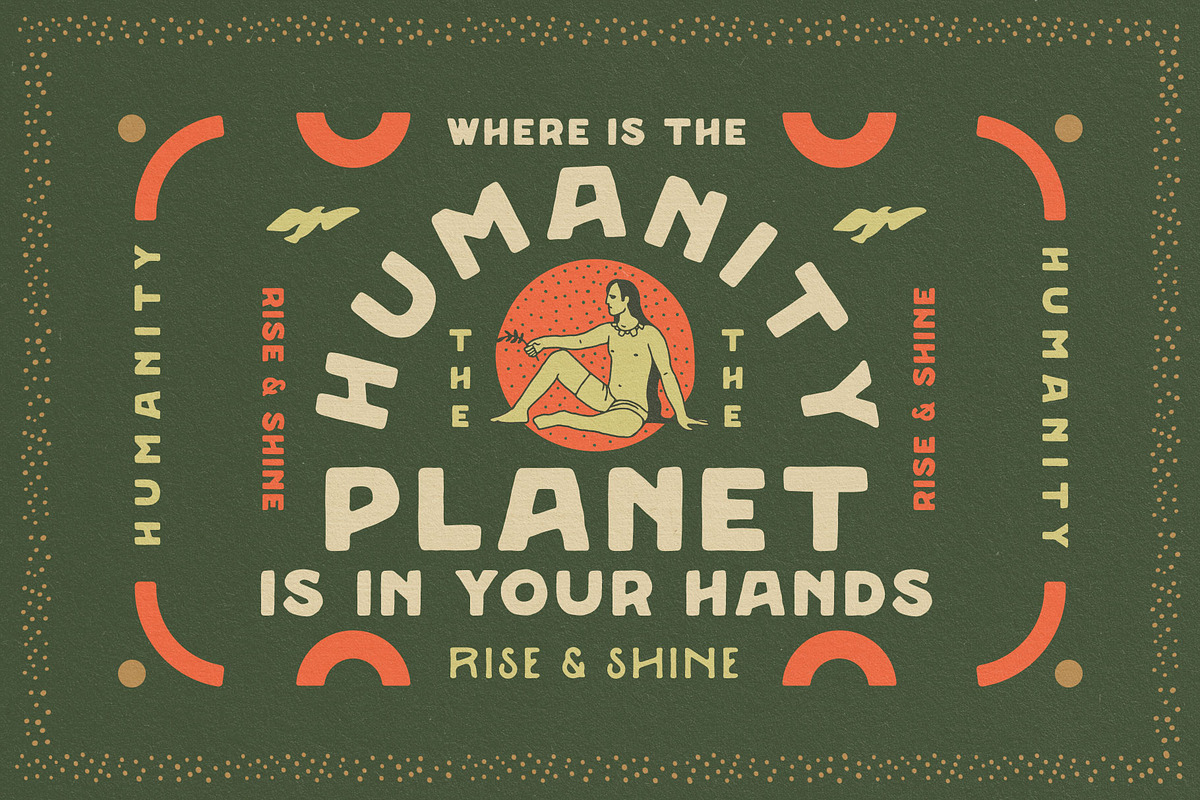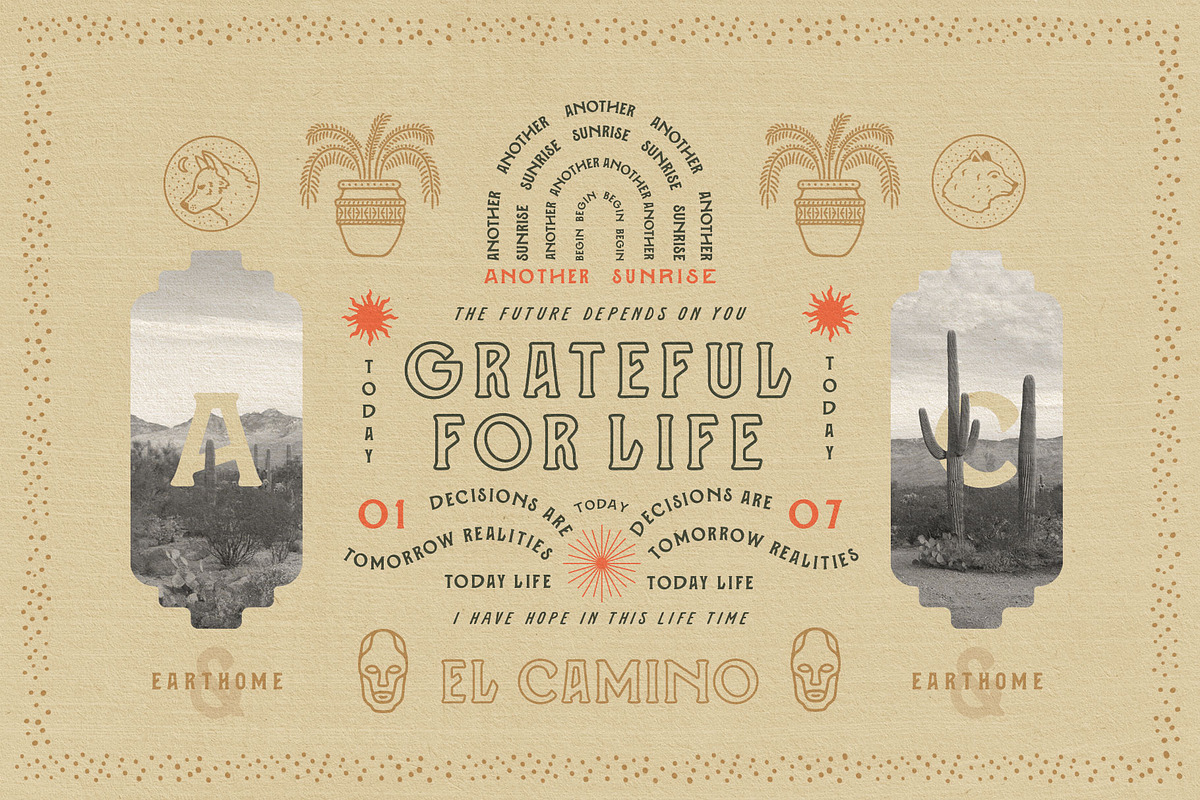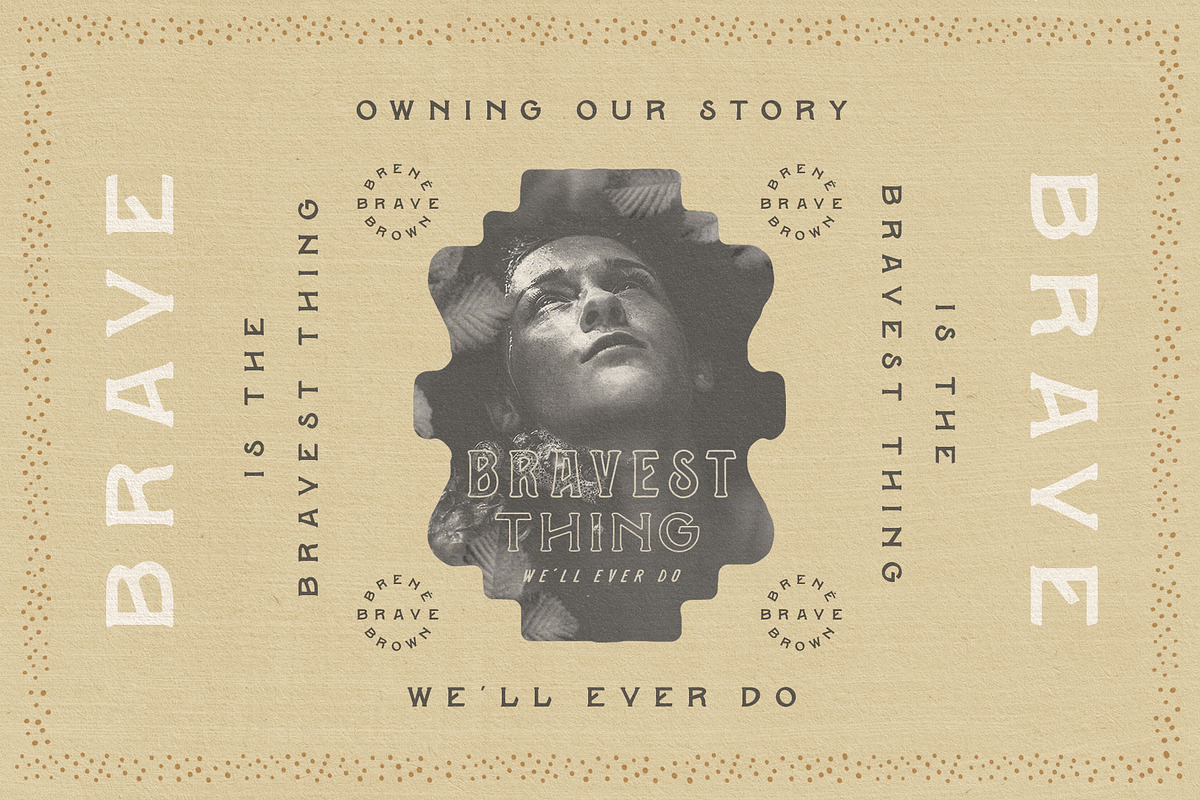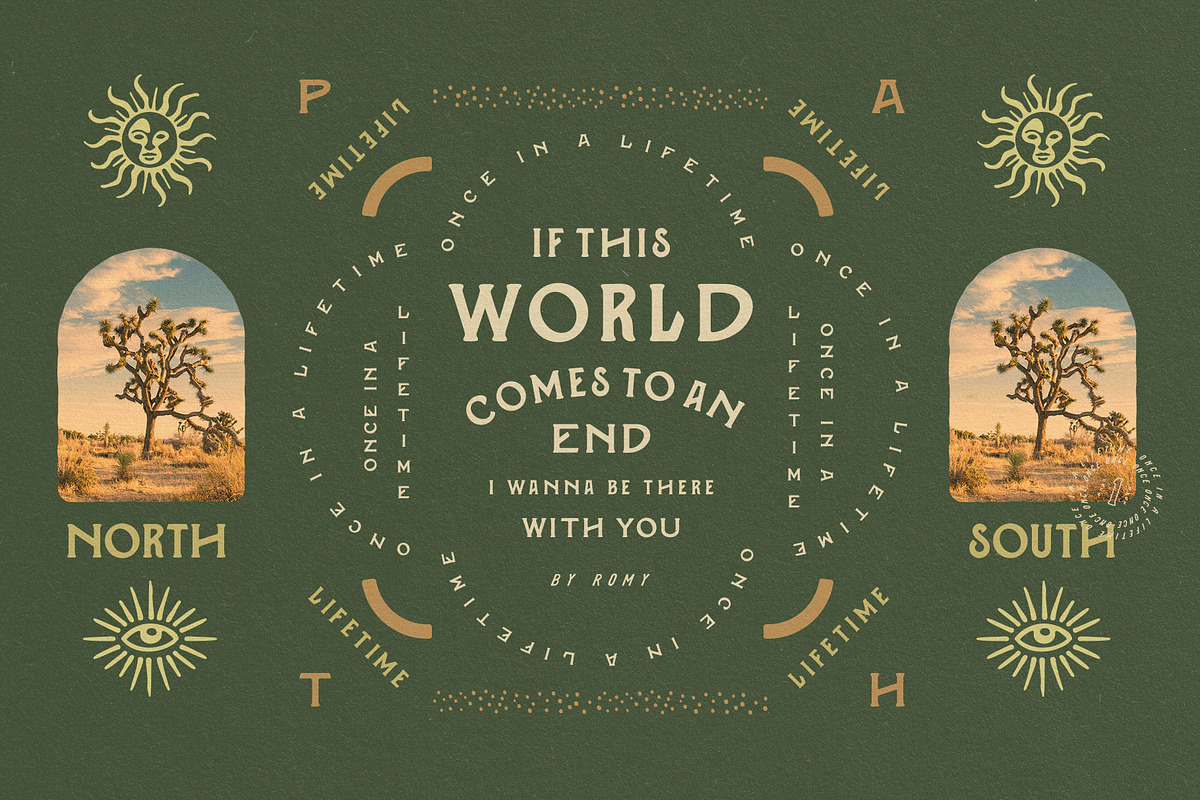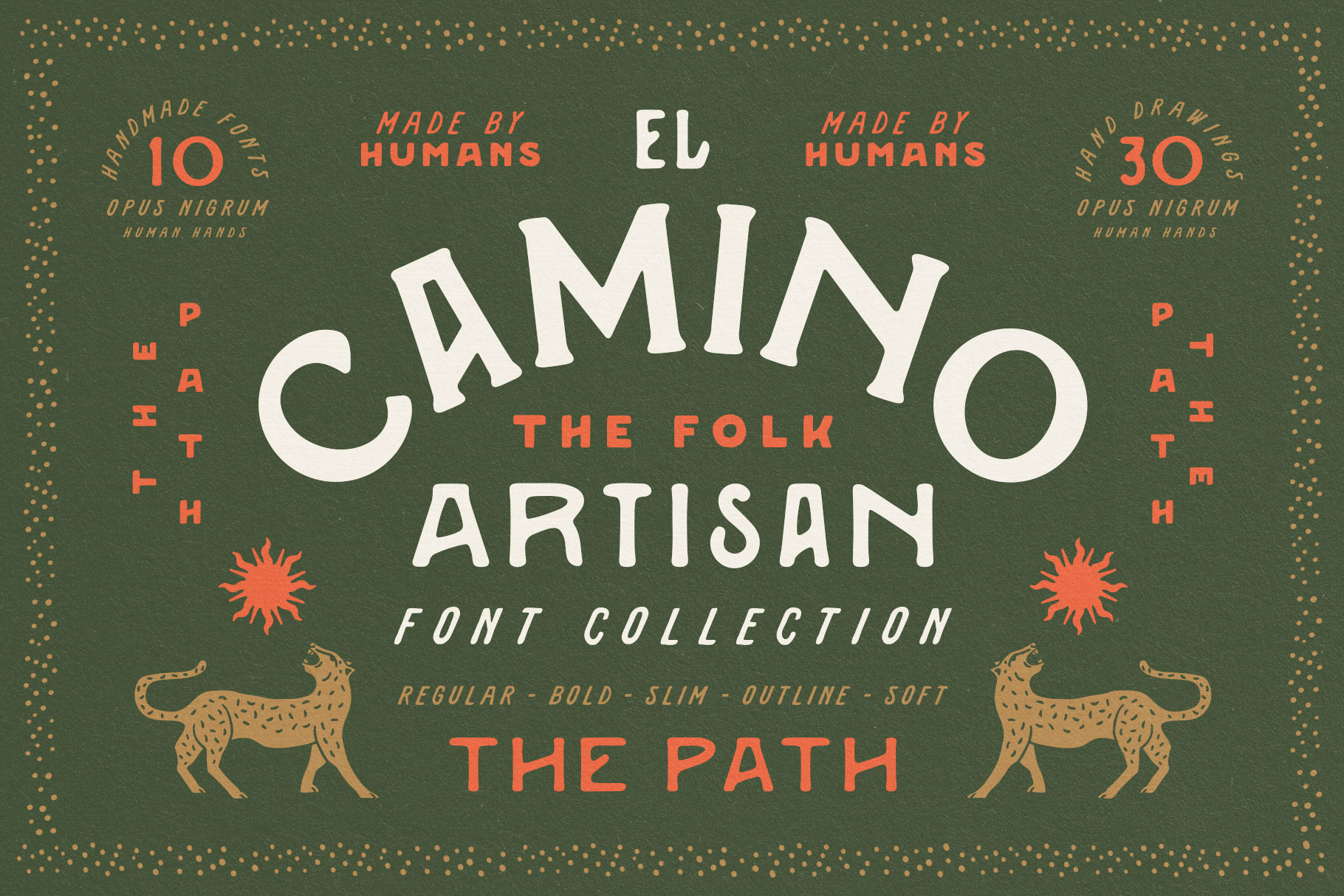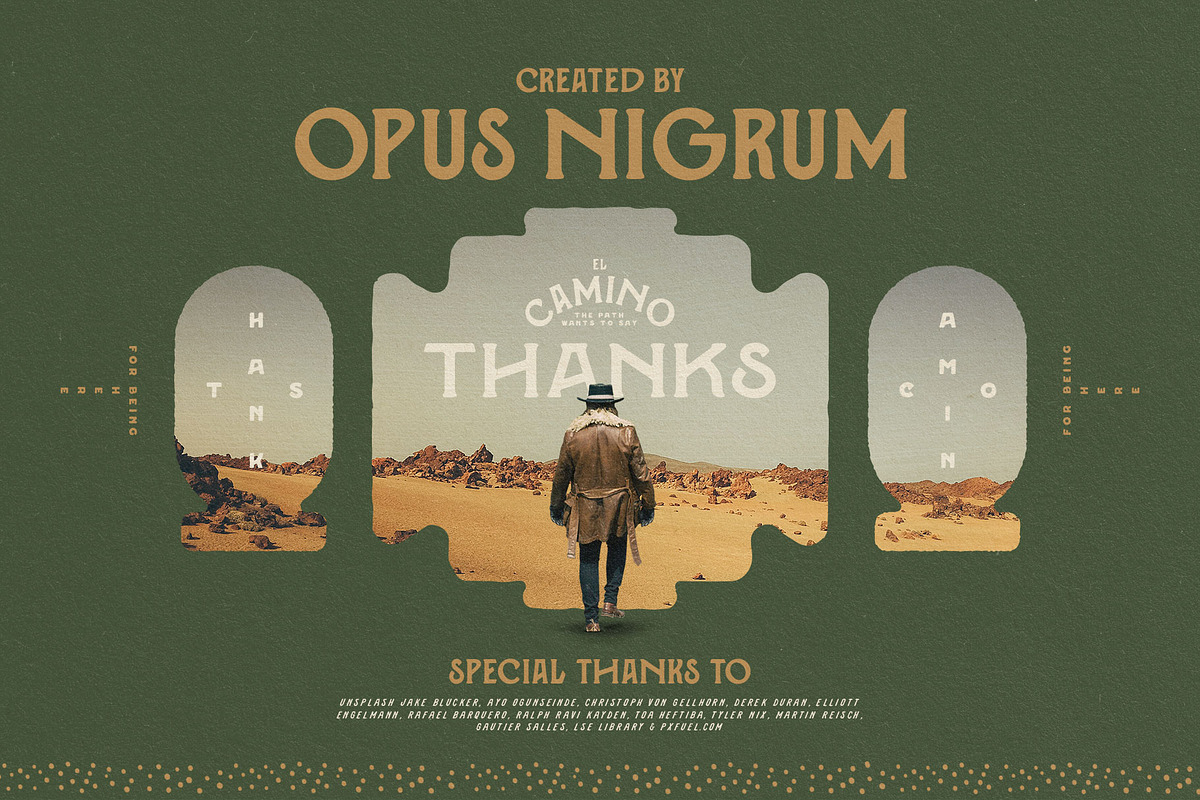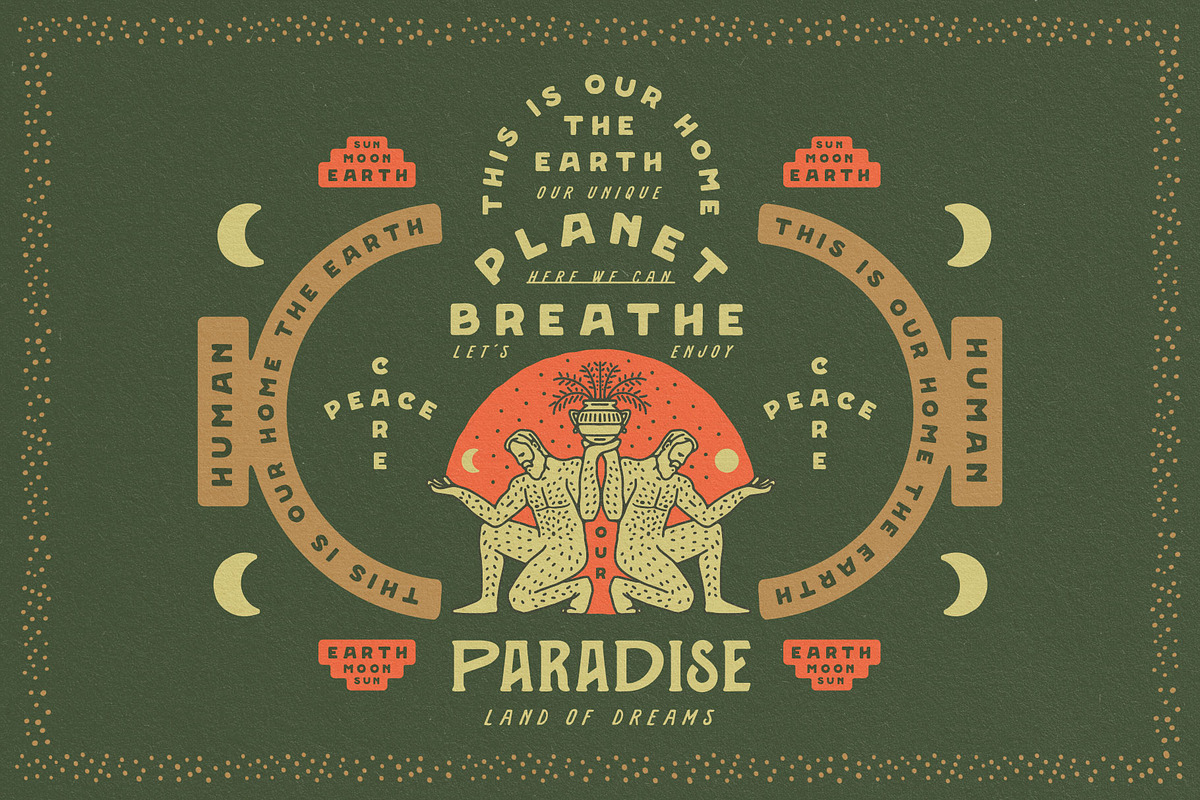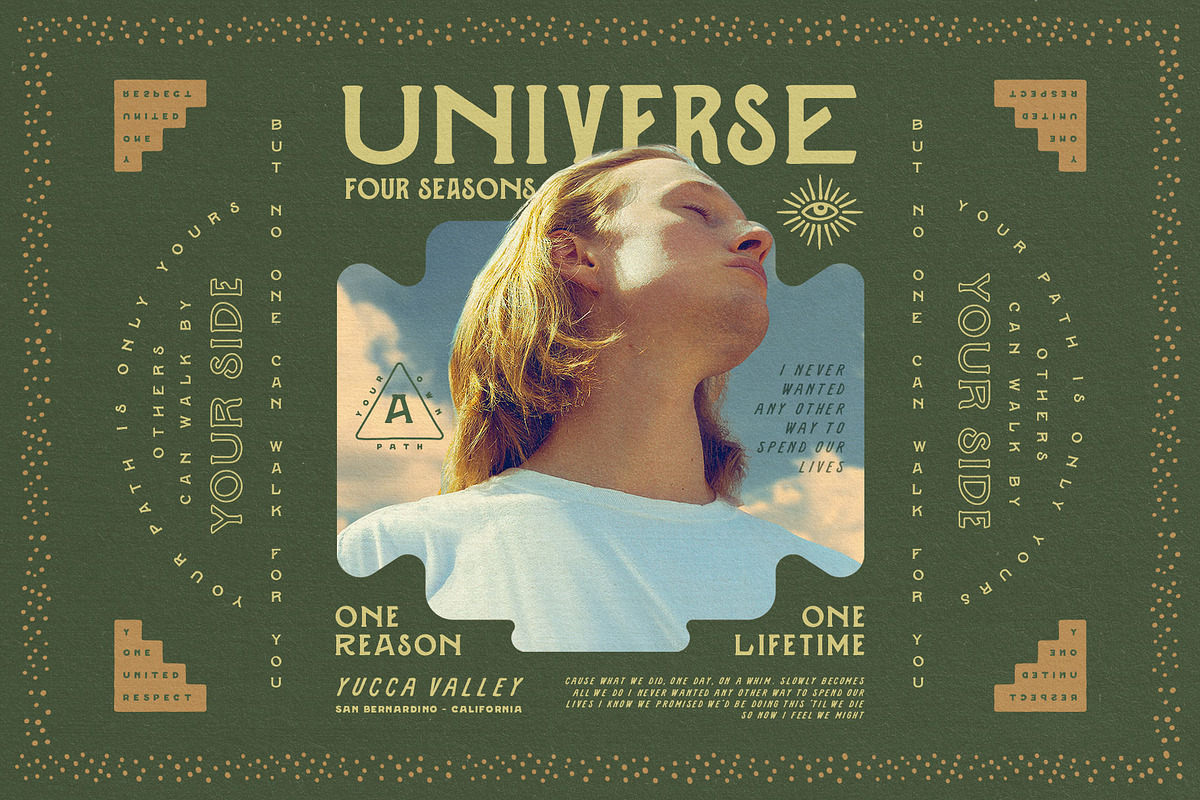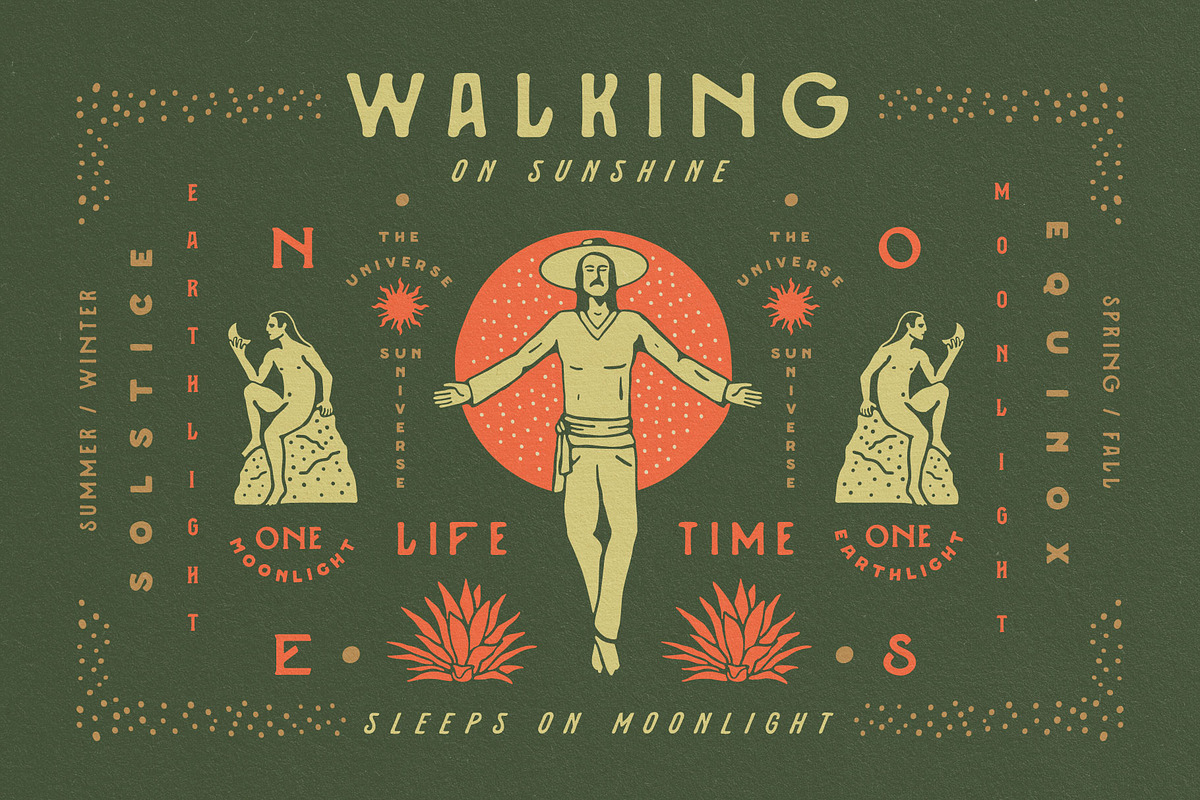
El Camino Font Collection + Extras
EL CAMINO means "The Path". This collection was born inspired by the old west, the desolate places, the desert of California and Mexico. With the flavour of the whiskey or the Mezcal. "El Camino" represents the journey of each one in life, introspection and learning.
This handmade font is wonderful to use in logos, designs, labels, clothes or anything you want. Play with all the variations and discretional ligatures. Use the uppercase for a different look, or change with the caps, soft, texture or outline versions. Combine perfect with El Camino Slim and Bold. Enjoy!
Just wanted to leave a review for this great font and graphic extras, lots of value here and such a great unique folk art style which I love.